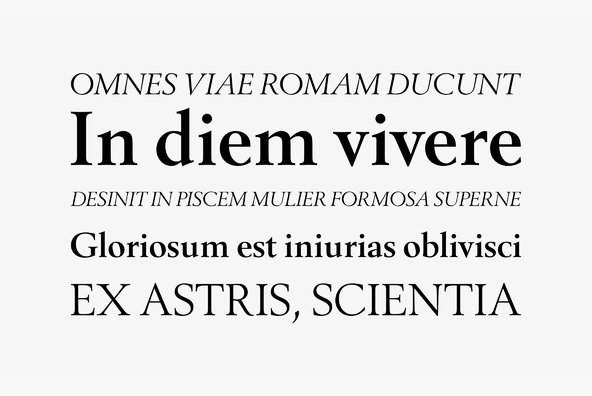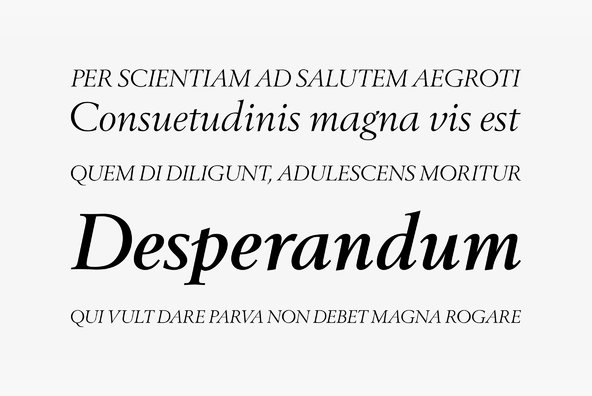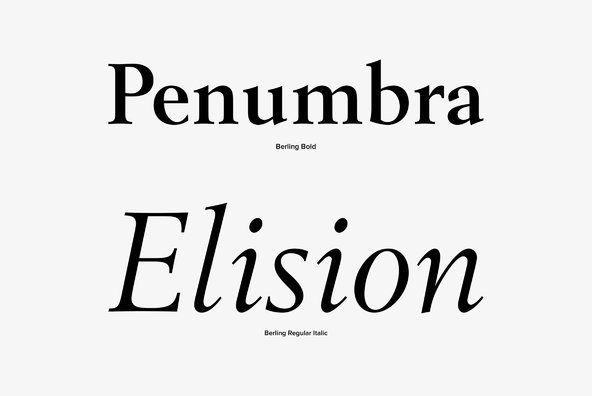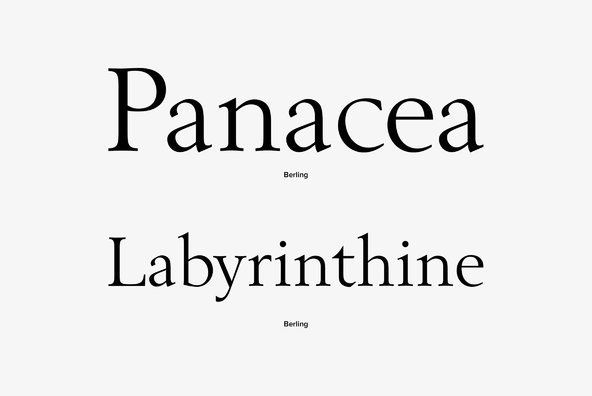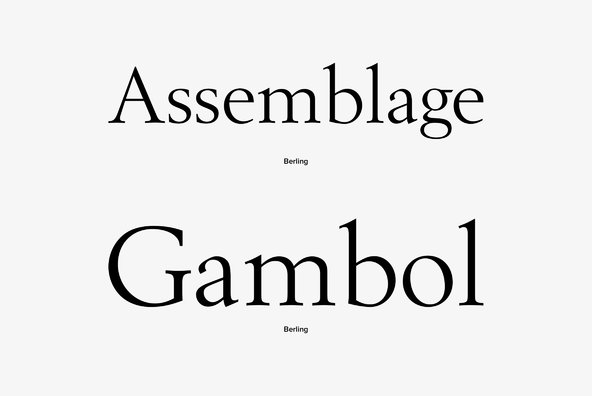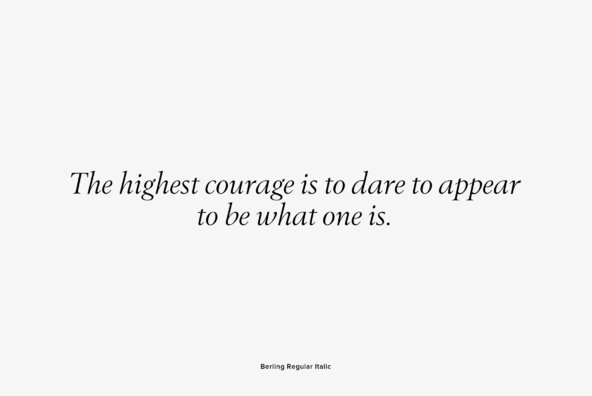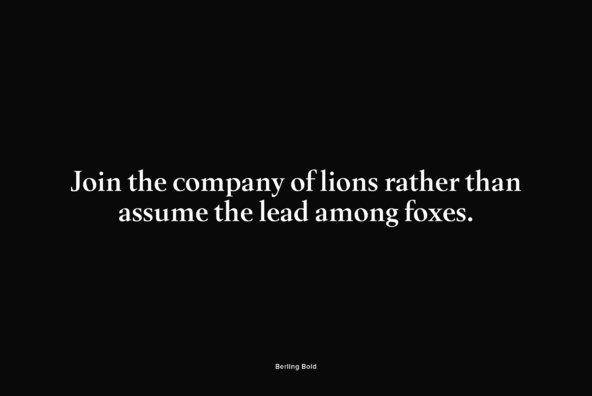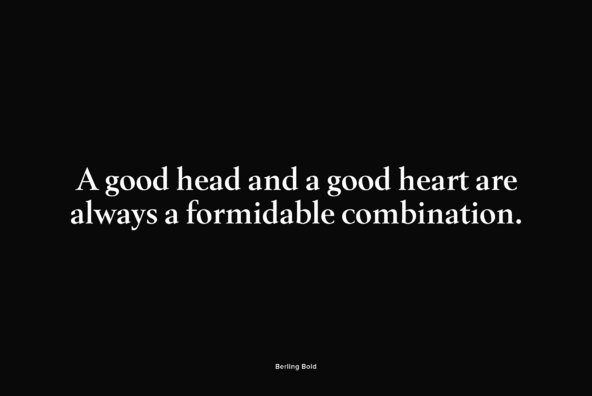
Berling
Designed by Karl Erik Forsberg in 1951, Berling is a serif font release by URW. Contains language support for West, East, Turkish, Baltic, and Romanian.